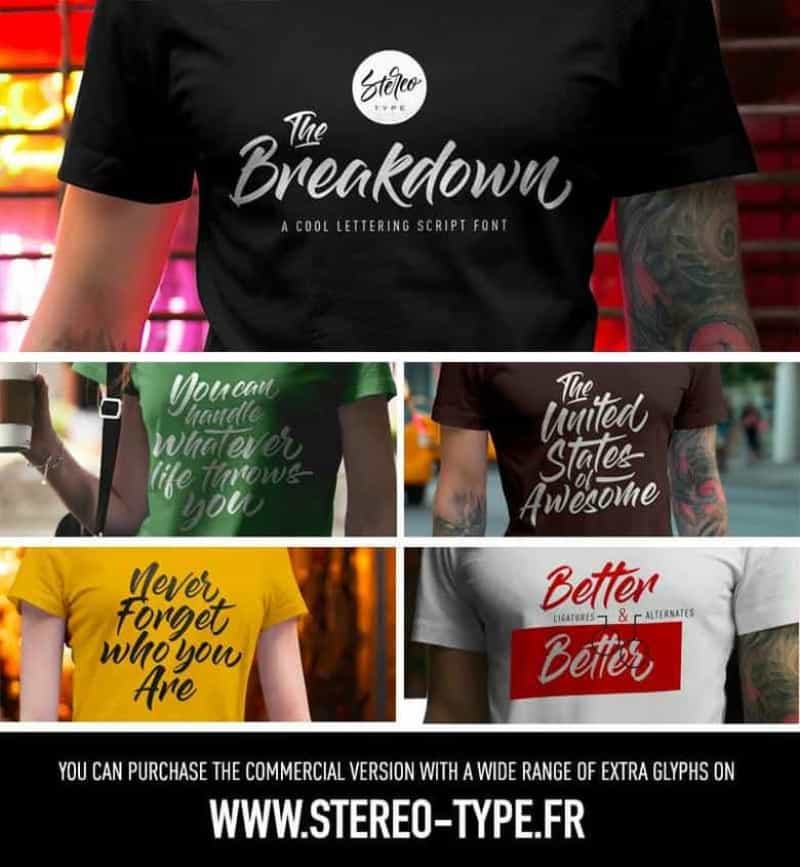
Discover The Breakdown Font, part of the Calligraphy collection—a versatile and unique font perfect for adding a personal touch to your projects. Download it for free and enjoy crafting designs with style, from invitations to social media posts. This font is available exclusively for personal use, giving you the freedom to create without limits. Unlock your creativity with The Breakdown Font today!
The full version of the commercial version contains an enormous amount of various options for the use of alternative glyphs and ligatures in different situations for the creation of your individuality! That I did out of passion and am confident that you will find usage of it commendable!